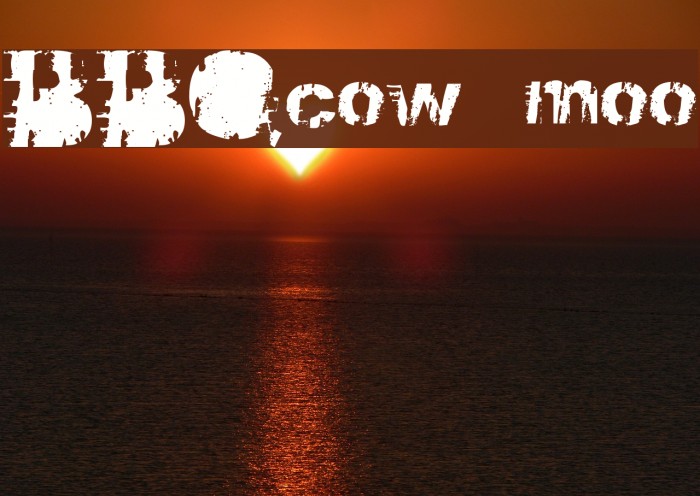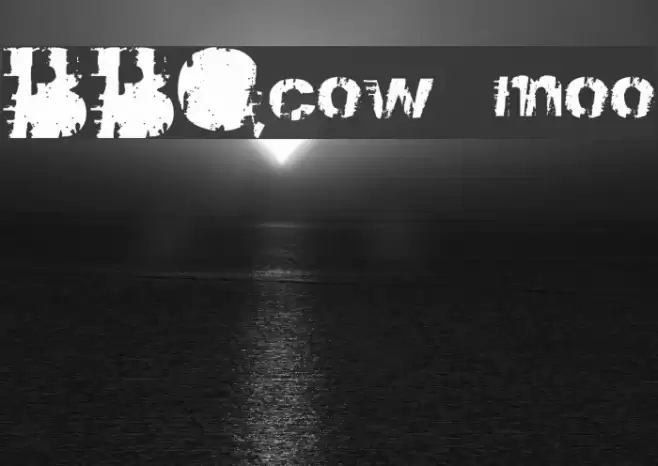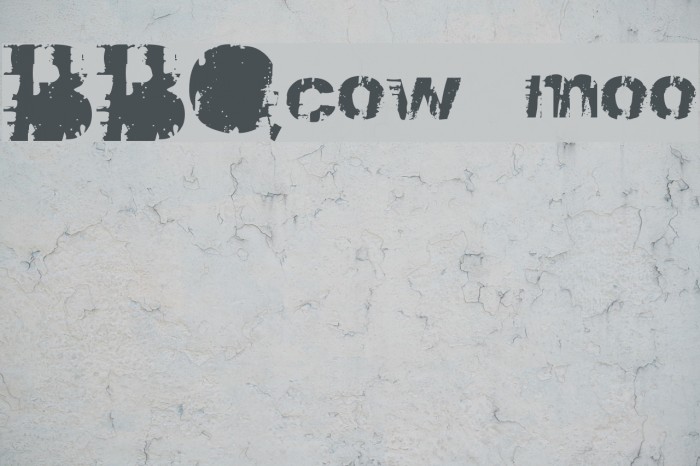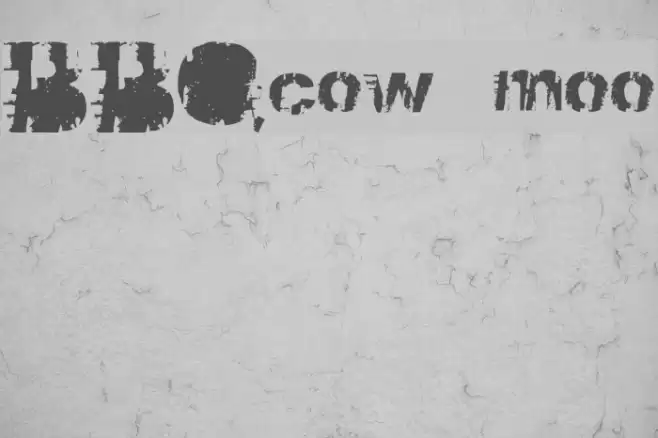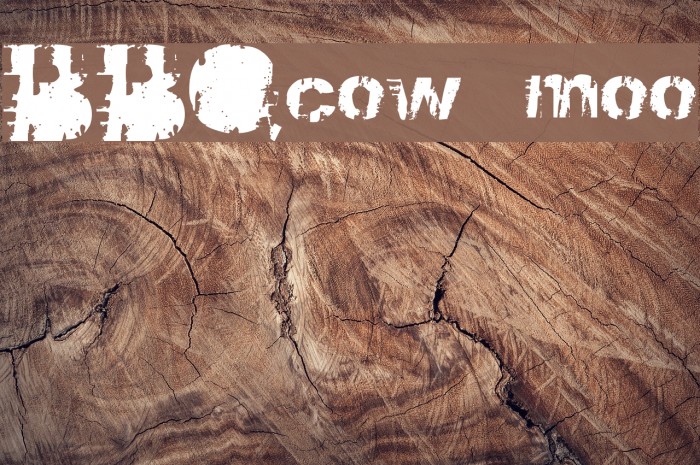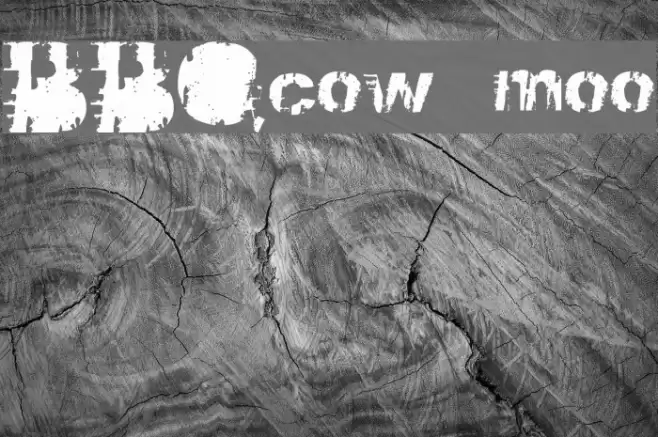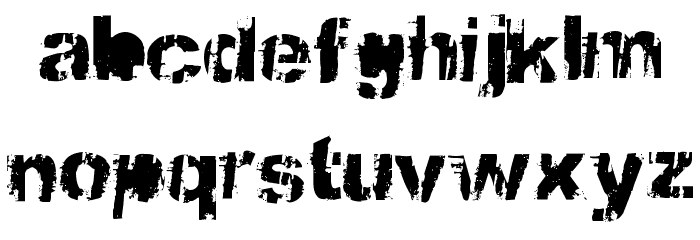
BBQcow moo Font
BBQcow moo Description
This font features a distressed and grungy style, with a rough, textured appearance that gives it a worn and weathered look. The characters are bold and impactful, with irregular edges that create a sense of dynamism and energy. The uppercase and lowercase letters maintain a consistent style, while the numbers and special characters follow the same distressed aesthetic. This font is ideal for projects that require a raw, edgy feel, such as music album covers, posters, or urban-themed designs.
| Overall Style | Grunge, Edgy, Distressed |
| Use Case | Headlines, Posters, Logos |
| Proposed Projects | Ideal for music album covers, posters, urban-themed designs, and any project needing a raw, edgy aesthetic. |